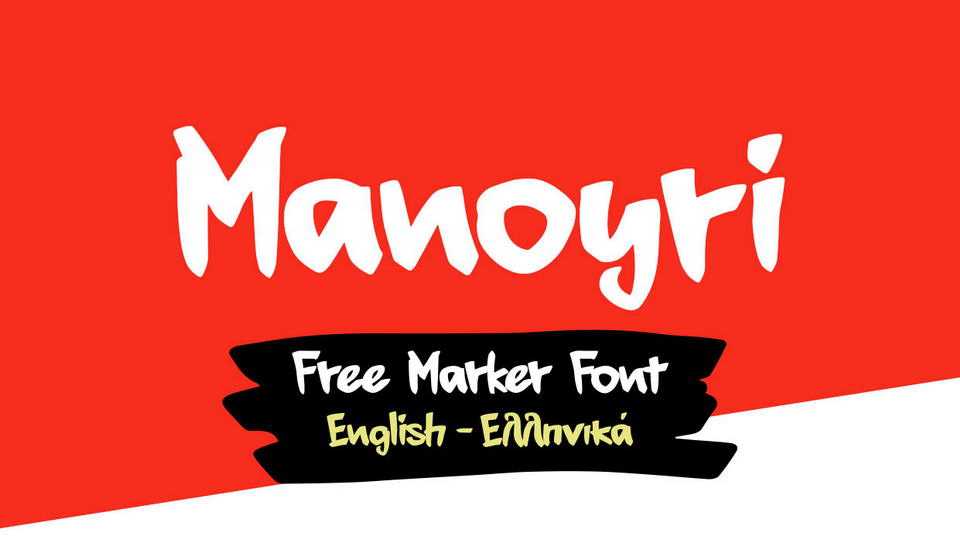
Download Manoyri font, a hand letterd marker typeface with a strong personality. Manoyri font is perfect for logos and branding, packaging and merchandise, social media and more.
Designer: Stergios Tsiamis